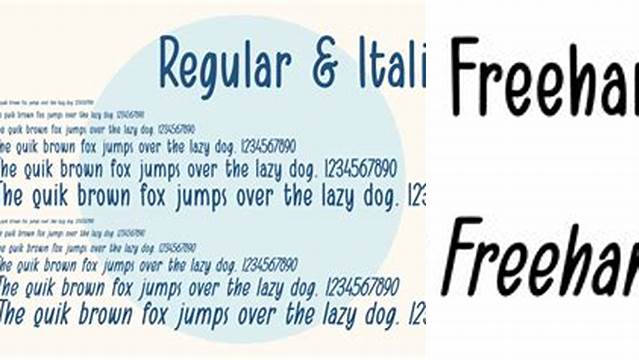
Quickly Create Regular Font Freehand: A Step-by-Step Guide
Introduction: Unleash Your Inner Calligrapher
Hey guys! Ever wished you could just whip up beautiful, consistent lettering without relying on templates or digital fonts? Well, you're in the right place! In this guide, we're diving deep into the art of creating regular fonts freehand. Forget rigid rules and pixel-perfect precision – we're embracing the organic, expressive nature of hand-drawn typography. Whether you're a seasoned artist looking to expand your skills or a complete beginner eager to explore the world of lettering, this is your ultimate resource for mastering the quick creation of regular fonts freehand. Let's embark on a journey where we'll unlock the secrets to crafting legible, aesthetically pleasing typefaces with just a pen and paper.
So, what exactly do we mean by "regular font"? Think of the classic, clean fonts you see in books, magazines, and websites – Times New Roman, Arial, Helvetica. These are the workhorses of the typography world, known for their readability and versatility. The beauty of learning to create these fonts freehand lies in the ability to adapt and personalize them. You'll gain a deep understanding of letterforms, spacing, and overall composition, allowing you to develop your unique style and create truly custom typography for any project. This knowledge is invaluable for graphic designers, illustrators, journal enthusiasts, or anyone who wants to add a personal touch to their written communication. We'll break down the process into manageable steps, covering everything from basic letter anatomy to advanced techniques for achieving consistency and flow. Get ready to unleash your creativity and transform your handwriting into a powerful artistic tool!
We'll begin by dissecting the fundamental elements of letterforms – the strokes, serifs, and proportions that define each character. Understanding these building blocks is crucial for creating a cohesive and legible font. Next, we'll explore different approaches to constructing letters, focusing on consistency in letter height, width, and spacing. You'll learn practical exercises and techniques for training your hand to create uniform shapes and maintain a steady rhythm. We'll also delve into the nuances of uppercase and lowercase alphabets, examining how they interact and complement each other. Furthermore, this guide will tackle the challenges of creating numerals and punctuation marks that seamlessly integrate with your font. Finally, we'll discuss strategies for refining your freehand fonts, identifying areas for improvement, and developing your personal style. By the end of this guide, you'll have the knowledge and skills to confidently create your own regular fonts freehand, adding a unique and artistic flair to your projects.
Essential Tools and Materials: Setting Up Your Workspace
Before we start sketching letters, let's gather the necessary tools and materials. Don't worry, you don't need a fancy calligraphy set or expensive equipment. The beauty of freehand lettering is its accessibility – you can create stunning fonts with just a few basic items. The most important tool, of course, is a reliable pen or pencil. A simple graphite pencil is a great starting point, allowing you to easily erase and make corrections. For a bolder, more permanent look, consider using a fineliner pen or a felt-tip pen. Experiment with different tip sizes to find what feels most comfortable and produces the desired line weight. Guys, remember that consistency is key, so stick to one type of pen or pencil for the duration of your font creation process to maintain a uniform appearance.
Next up, you'll need a suitable surface to work on. Plain white paper is perfectly fine for practicing and sketching. However, if you're aiming for a more polished final product, consider using higher-quality paper that is less prone to bleeding or feathering. A smooth surface is generally preferable for lettering, as it allows your pen to glide effortlessly and prevents unwanted textures. If you're working on a digital project, you can scan your hand-drawn letters and refine them using graphic design software. In this case, using heavier paper stock will minimize bleed-through and ensure a cleaner scan. A ruler or straightedge is another essential tool for creating guidelines and ensuring consistent letter height and alignment. While we're aiming for a freehand look, guidelines provide a crucial framework for maintaining legibility and uniformity. Don't underestimate the power of a good eraser! A kneaded eraser is particularly useful for lifting graphite without damaging the paper, allowing you to make subtle adjustments and refine your letterforms. It's also a good idea to have some tracing paper on hand for experimenting with different letter variations and refining your design.
Finally, don't forget the importance of a comfortable workspace. Choose a well-lit area where you can sit comfortably and focus without distractions. Proper posture is crucial for preventing hand fatigue and maintaining control over your pen. Consider using a desk lamp to illuminate your work surface and reduce eye strain. Having a clear and organized workspace will also contribute to a smoother and more enjoyable lettering experience. Now that we've gathered our tools and materials, let's move on to the exciting part – learning the fundamentals of letter anatomy and construction!
Understanding Letter Anatomy: The Building Blocks of Typography
Alright, guys, before we start scribbling away, it's crucial to understand the anatomy of letters. Think of each letter as a mini-sculpture, composed of different parts that work together to create a recognizable form. Understanding these components will give you a solid foundation for creating consistent and legible fonts. Let's break down the key elements of letter anatomy, starting with the baseline. This is the imaginary line upon which the letters sit. It's the foundation of your font, providing a visual anchor for the entire alphabet. Above the baseline, we have the x-height, which is the height of the lowercase letters, excluding ascenders and descenders. The x-height plays a crucial role in the overall readability of your font. A larger x-height generally makes a font easier to read, while a smaller x-height can create a more elegant and refined appearance.
Next, we have ascenders and descenders. Ascenders are the parts of lowercase letters that extend above the x-height, such as the "b," "d," "f," "h," "k," and "l." Descenders, on the other hand, are the parts of lowercase letters that extend below the baseline, such as the "g," "j," "p," "q," and "y." The length and shape of ascenders and descenders significantly impact the personality and visual appeal of your font. Experimenting with different ascender and descender lengths can dramatically change the overall look and feel. Within the letterforms themselves, we encounter various strokes, including stems, bowls, counters, and serifs. Stems are the main vertical strokes of a letter, providing structural support. Bowls are the curved parts of letters, such as the "o," "b," "d," and "p." Counters are the enclosed or partially enclosed spaces within a letter, such as the space inside the "o" or the "a." Serifs are the small decorative strokes at the ends of the main strokes of a letter. Serifs can add a touch of formality and tradition to a font, while sans-serif fonts, which lack serifs, tend to have a more modern and minimalist appearance.
Understanding the relationship between these elements is key to creating a harmonious and well-balanced font. For instance, the proportions of the x-height to the ascenders and descenders will influence the overall visual rhythm of your text. Similarly, the thickness of the strokes and the shape of the serifs will contribute to the personality and style of your font. By paying close attention to these details, you can develop a keen eye for typography and create fonts that are both visually appealing and highly legible. Now that we've explored the anatomy of letters, let's move on to the practical aspects of constructing them freehand.
Constructing Letters Freehand: Techniques and Exercises
Okay, guys, now for the fun part – actually drawing the letters! This is where your understanding of letter anatomy comes into play. We'll start with some fundamental techniques and exercises to help you develop your freehand lettering skills. The key to creating consistent letterforms is to establish a set of guidelines. Using a ruler or straightedge, draw three horizontal lines on your paper: the baseline, the x-height line, and the ascender line. The space between the baseline and the x-height line determines the x-height of your font, while the space between the x-height line and the ascender line determines the height of the ascenders. You can also draw a descender line below the baseline to guide the placement of the descenders. These guidelines will serve as a framework for your letters, helping you maintain consistent letter height and alignment.
Let's begin with the lowercase alphabet. Start with simple letters like "o," "n," and "m." These letters are composed of basic strokes and curves, making them ideal for practicing your hand control. Focus on maintaining a consistent stroke thickness and smooth curves. Pay attention to the proportions of the letters – the width of the "n" should be roughly the same as the width of the "m," and the height of the "o" should match the x-height. Next, move on to letters with ascenders and descenders, such as "b," "d," "p," and "q." These letters require careful attention to the length and shape of the ascenders and descenders. Practice making consistent ascender and descender lengths, and experiment with different styles to find what you like best. For letters with diagonal strokes, such as "x," "k," and "v," focus on maintaining a consistent angle and stroke thickness. These letters can be challenging to draw freehand, so don't be discouraged if they don't look perfect at first. Keep practicing, and you'll gradually develop the necessary muscle memory and hand control.
When constructing uppercase letters, the same principles apply. Establish guidelines for the cap height, which is the height of the uppercase letters. Focus on maintaining consistent stroke thickness and proportions. Pay attention to the relationships between different letterforms – for instance, the width of the "A" should be visually balanced with the width of the "M." Experiment with different styles and variations to create a unique and personalized uppercase alphabet. Practice connecting letters to create words and phrases. Pay attention to the spacing between letters, which is crucial for readability. The goal is to create a harmonious flow of text, where the letters seamlessly blend together. Over time, guys, with dedicated practice and experimentation, you'll develop your unique freehand lettering style. The key is to be patient, persistent, and most importantly, to have fun with the process!
Achieving Consistency and Flow: Refining Your Freehand Font
Alright, guys, you've mastered the basics of letter anatomy and construction. Now it's time to focus on achieving consistency and flow in your freehand font. This is where the art truly comes alive. Consistency is key to creating a legible and professional-looking font. It means maintaining a uniform letter height, stroke thickness, spacing, and overall style throughout your alphabet. While a completely perfect consistency is difficult to achieve freehand, striving for it will result in a much more polished and refined final product. One of the best ways to ensure consistency is to use your guidelines effectively. Regularly check your letters against the baseline, x-height line, and ascender/descender lines to ensure they are aligned correctly. Pay close attention to the stroke thickness, making sure it remains uniform across all letters. Inconsistencies in stroke thickness can make your font look uneven and amateurish. Use a ruler or your eye to measure the spaces between letters and words. Consistent spacing is crucial for readability. Overcrowded letters can be difficult to decipher, while excessive spacing can make your text look disjointed.
Flow refers to the visual rhythm and harmony of your font. It's how the letters connect and interact with each other to create a cohesive and pleasing whole. A font with good flow will be easy to read and visually engaging. One of the key elements of flow is the spacing between letters, as we've already mentioned. But it also involves the overall shape and style of your letters. Letters that are too angular or too rounded can disrupt the flow of your text. Try to create a balance between these elements, striving for smooth transitions and consistent shapes. Another important aspect of flow is the connection between letters. When letters are connected seamlessly, they create a sense of continuity and rhythm. Experiment with different ways of connecting letters, paying attention to the angles and curves. Some letters naturally connect better than others, so it's important to find combinations that work well together. Regularly step back from your work and assess your font as a whole. Look for any inconsistencies or areas where the flow is disrupted. Don't be afraid to make adjustments and refine your letters until you're satisfied with the overall appearance.
Remember, guys, creating a truly consistent and flowing freehand font takes time and practice. Don't be discouraged if your first attempts aren't perfect. The key is to keep experimenting, keep refining, and keep developing your unique style. With dedication and patience, you'll be amazed at what you can achieve. So, grab your pen and paper, and let's continue our journey into the art of freehand typography!
Digitizing Your Freehand Font (Optional): Taking It to the Next Level
Okay, guys, so you've crafted a stunning freehand font – congratulations! But what if you want to use it on your computer for digital projects? That's where digitizing your font comes in. This process involves converting your hand-drawn letters into a digital format that can be used in word processors, graphic design software, and other applications. While it's an optional step, digitizing your font opens up a world of possibilities and allows you to share your unique creation with others. There are several ways to digitize your freehand font, ranging from simple methods using basic software to more advanced techniques using professional font editors. Let's explore some of the options, starting with the simplest approach.
The easiest way to digitize your font is to scan your hand-drawn letters and import them into a graphic design program like Adobe Illustrator or Inkscape (a free, open-source alternative). Once your letters are in digital format, you can use the software's tracing tools to convert them into vector graphics. Vector graphics are made up of mathematical equations rather than pixels, which means they can be scaled to any size without losing quality. This is crucial for creating a font that can be used in a variety of applications. After tracing your letters, you can refine them further using the software's editing tools. Adjust the curves, smooth out any rough edges, and ensure consistent stroke thickness. You can also add serifs, change the letter spacing, and make other modifications to perfect your font. Once your letters are finalized, you'll need to arrange them in a character map, which is a table that assigns each letter to a specific keystroke. Most graphic design programs have features for creating character maps, or you can use a dedicated font editor.
For a more professional and streamlined approach, consider using dedicated font editing software like FontLab Studio, Glyphs, or RoboFont. These programs are specifically designed for creating and editing fonts, offering a wide range of tools and features that can significantly speed up the digitizing process. They allow you to create precise outlines, adjust kerning and letter spacing with ease, and generate font files in various formats (such as OpenType and TrueType). If you're serious about creating fonts, investing in font editing software is definitely worth considering. Digitizing your freehand font can be a time-consuming process, but the results are well worth the effort. You'll have a unique and personalized font that you can use for all your digital projects. And who knows, guys, maybe you'll even start selling your fonts online and become a typography superstar! Now that we've covered the basics of digitizing your font, let's wrap things up with some final tips and inspiration.
Final Tips and Inspiration: Unleash Your Typographic Creativity
Alright, guys, we've reached the end of our guide, but your journey into the world of freehand typography is just beginning! Before we say goodbye, let's recap some key tips and offer some final inspiration to help you unleash your typographic creativity. First and foremost, practice, practice! The more you draw letters, the better you'll become at creating consistent and flowing fonts. Set aside some time each day to practice your lettering skills, even if it's just for a few minutes. Experiment with different styles, techniques, and variations. Don't be afraid to break the rules and try new things. The beauty of freehand typography is its organic and expressive nature, so embrace your creativity and let your personality shine through.
Seek inspiration from other sources. Look at existing fonts, both digital and hand-drawn, and analyze what makes them effective. Study the work of renowned typographers and calligraphers, but also pay attention to everyday lettering you encounter in signs, packaging, and other media. Collect examples of letterforms you admire and use them as a starting point for your own designs. Develop your unique style. While it's important to learn the fundamentals of letter anatomy and construction, don't be afraid to put your own spin on things. Experiment with different stroke thicknesses, serifs, and overall letter shapes to create a font that reflects your personal aesthetic. Collaborate with other artists and designers. Sharing your work and receiving feedback from others can be invaluable for improving your skills and expanding your creative horizons. Join online lettering communities, attend workshops, and connect with other typography enthusiasts. Most importantly, have fun! Creating freehand fonts should be an enjoyable and rewarding process. Don't get too caught up in perfectionism, guys, and allow yourself to experiment, make mistakes, and learn from them. The more you enjoy the process, the more creative and innovative you'll become.
So, there you have it – a comprehensive guide to quickly creating regular fonts freehand. We've covered everything from letter anatomy and construction to consistency, flow, and digitizing your fonts. Now it's up to you to put these skills into practice and unleash your typographic creativity. Remember, guys, the world of typography is vast and exciting, and there's always something new to learn. Keep exploring, keep experimenting, and keep creating. Happy lettering!